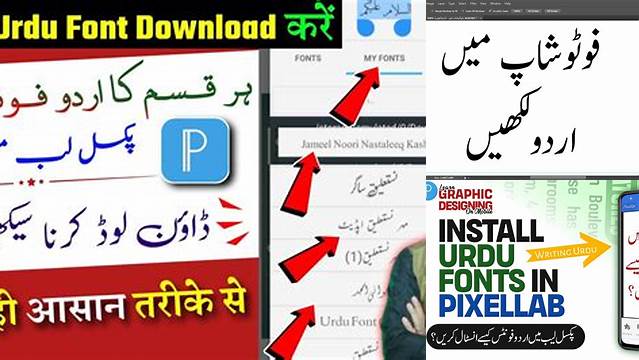
Install Urdu Fonts In Photoshop: A Simple Guide
Hey guys! Ever wanted to add a touch of Urdu calligraphy to your Photoshop masterpieces? It's easier than you think! This guide will walk you through how to install Urdu fonts in Adobe Photoshop step-by-step. We'll cover everything from finding the right fonts to troubleshooting common issues. So, let's dive in!
1. Understanding Urdu Font Compatibility with Photoshop
Before you jump right into installing fonts, it's crucial to understand how Urdu fonts work with Photoshop. Urdu, being a right-to-left script, requires fonts that are specifically designed to handle its complex character set and contextual ligatures. Not all fonts are created equal! Ensure the Urdu fonts you download support OpenType features, which enable proper rendering of the script in Photoshop. Using incompatible fonts can lead to display issues like broken characters or incorrect text direction. Also, confirm that your version of Photoshop supports Unicode, as this is essential for displaying Urdu characters correctly. Unicode support allows Photoshop to accurately interpret and display the wide range of characters present in the Urdu script. So, before you even start downloading, make sure you’re ticking all these boxes to avoid headaches later on. Think of it like preparing your canvas before painting – a little prep goes a long way!
2. Finding Reliable Sources for Urdu Fonts
Alright, so you know why compatibility matters. Now, where do you find these elusive Urdu fonts? The internet is a vast place, but not all font sources are trustworthy. Stick to reputable websites that offer high-quality fonts and are known for their reliability. Look for websites that provide previews of the fonts so you can see exactly what you're getting before you download. Free font websites can be tempting, but be cautious of potential malware or fonts that aren't properly licensed. Consider exploring websites dedicated to Urdu typography or design communities where designers often share their font creations. Some well-known platforms also offer a selection of Urdu fonts, both free and paid. Paid fonts often come with better support and a wider range of styles and weights. Always, always check the licensing terms of the font before using it in your projects, especially if you're planning to use it for commercial purposes. Nobody wants a copyright infringement notice!
7. Troubleshooting Font Display Issues in Photoshop
Okay, sometimes things don't go as planned, right? If you're seeing weird characters or your Urdu font isn't displaying correctly in Photoshop, don't panic! First, make sure you've selected the correct font in the Character panel. Double-check that the font supports OpenType features and that your Photoshop version supports Unicode. If you're still having problems, try adjusting the text direction to right-to-left in the Paragraph panel. Sometimes, Photoshop's text engine can be a bit finicky. If none of these steps work, try clearing Photoshop's font cache. To do this, close Photoshop, navigate to your user directory, and delete the "AdobeFnt[Photoshop version]Cache" file. Restart Photoshop, and it will rebuild the font cache. As a last resort, try reinstalling the font. Sometimes, the font file can become corrupted during download or installation. By following these troubleshooting steps, you should be able to resolve most font display issues in Photoshop.
8. Understanding OpenType Features for Urdu Fonts
OpenType features are your best friend when working with Urdu fonts in Photoshop. These features allow the font to display complex characters and ligatures correctly. Look for fonts that support features like contextual alternates, which automatically adjust the shape of characters based on their surrounding letters. This is crucial for Urdu, where characters often connect and change form depending on their position in a word. To access OpenType features in Photoshop, open the Character panel (Window > Character) and click on the panel menu (the three horizontal lines in the top right corner). Select "OpenType" from the menu, and you'll see a list of available features. Experiment with different features to see how they affect the appearance of your text. By understanding and utilizing OpenType features, you can ensure that your Urdu text looks beautiful and authentic in Photoshop.
9. Using the Paragraph Panel for Right-to-Left Text
Since Urdu is a right-to-left language, you'll need to adjust the text direction in Photoshop's Paragraph panel. To open the Paragraph panel, go to Window > Paragraph. In the panel, you'll see options for aligning text to the left, center, or right. You'll also see buttons for setting the text direction to left-to-right or right-to-left. Click the right-to-left button to ensure that your Urdu text flows correctly. You can also adjust other paragraph settings, such as indentation and spacing, to fine-tune the appearance of your text. The Paragraph panel is essential for working with right-to-left languages in Photoshop, so make sure you're familiar with its features.
10. Exploring Different Styles of Urdu Fonts
Just like any other language, Urdu fonts come in a variety of styles, from traditional calligraphy to modern designs. Experiment with different font styles to find the perfect one for your project. Naskh is a classic style that's often used for body text. Nastaliq is a more flowing and ornate style that's popular for headings and display text. There are also many contemporary Urdu font styles that blend traditional elements with modern design principles. Don't be afraid to try out different fonts and see what works best for your aesthetic. You can find a wide range of Urdu font styles on reputable font websites and design communities. With a little exploration, you're sure to discover some hidden gems.
11. Creating Calligraphic Effects with Urdu Fonts
Want to add some extra flair to your Urdu text? Try creating calligraphic effects in Photoshop. Start by selecting a font that has a calligraphic style, such as Nastaliq. Use the Type tool to create your text, and then experiment with different layer styles to add depth and dimension. Add a subtle drop shadow to make the text pop off the canvas. Use a gradient overlay to create a sense of movement. Experiment with different blending modes to achieve unique effects. You can also use Photoshop's brushes to add hand-drawn details to your text. With a little creativity, you can create stunning calligraphic effects that will make your Urdu text truly stand out.
12. Combining Urdu Fonts with Other Design Elements
Don't be afraid to combine Urdu fonts with other design elements in your projects. Use Urdu text as headings or subheadings to add a touch of elegance and sophistication. Incorporate Urdu calligraphy into your logos or branding materials. Use Urdu quotes or poems to add meaning and emotion to your designs. When combining Urdu fonts with other elements, pay attention to the overall composition and balance. Make sure the Urdu text complements the other elements and doesn't clash with them. Experiment with different color palettes and typography styles to create a cohesive and visually appealing design. The possibilities are endless!
13. Using Urdu Fonts for Logos and Branding
Urdu fonts can add a unique and culturally relevant touch to logos and branding materials. When designing a logo with Urdu text, choose a font that reflects the brand's personality and values. A traditional font like Naskh might be suitable for a company with a long history, while a modern font might be a better choice for a startup. Consider the overall aesthetic of the logo and how the Urdu text will interact with other design elements. Use color and typography to create a strong and memorable visual identity. A well-designed logo with Urdu text can help a brand stand out from the competition and connect with its target audience on a deeper level.
14. Designing Posters with Urdu Typography
Posters are a great way to showcase the beauty of Urdu typography. When designing a poster with Urdu text, start by choosing a font that's legible and visually appealing. Consider the overall message of the poster and how the Urdu text can help convey that message. Use a combination of large and small text to create visual interest. Experiment with different layouts and compositions. Don't be afraid to use bold colors and graphics to make your poster stand out. A well-designed poster with Urdu typography can be a powerful tool for communication and artistic expression.
15. Creating Social Media Graphics with Urdu Fonts
In today's digital world, social media graphics are essential for reaching a wide audience. Using Urdu fonts in your social media graphics can help you connect with Urdu-speaking communities and create content that resonates with them. When designing social media graphics with Urdu text, keep in mind the platform's size and resolution requirements. Use a font that's easy to read on small screens. Keep your text concise and to the point. Use visuals that complement the Urdu text and enhance the overall message. A well-designed social media graphic with Urdu fonts can help you increase engagement and reach a wider audience.
16. Adding Urdu Subtitles to Videos in Photoshop
While Photoshop isn't primarily a video editing software, you can use it to create static subtitle images for your videos. To add Urdu subtitles to videos, you'll first need to transcribe the audio into Urdu text. Then, create a new Photoshop document with the same dimensions as your video. Use the Type tool to add the Urdu text to the document. Choose a font that's easy to read and position the text at the bottom of the screen. Save the document as a PNG file with transparency. Import the PNG file into your video editing software and overlay it on top of your video. Adjust the timing and duration of the subtitle image to match the audio. With a little patience, you can add Urdu subtitles to your videos using Photoshop.
17. Translating English Text to Urdu for Photoshop Projects
If you're working on a Photoshop project that requires Urdu text, you might need to translate English text to Urdu. There are many online translation tools that can help you with this. However, keep in mind that machine translations are not always accurate, especially for complex or nuanced text. It's always a good idea to have a native Urdu speaker review the translation to ensure that it's accurate and idiomatic. Once you have the translated text, you can use it in your Photoshop project. Using accurate and well-translated Urdu text will help you connect with your target audience and create a more authentic and engaging experience.
18. Using Urdu Fonts in Print Design Projects
Urdu fonts can add a touch of elegance and sophistication to print design projects such as brochures, flyers, and posters. When using Urdu fonts in print, it's important to choose a font that's legible and prints well. Consider the paper stock and printing method when selecting a font. Use high-resolution images and graphics to ensure that your print design looks sharp and professional. Proofread your text carefully to catch any errors before sending it to the printer. A well-designed print project with Urdu fonts can be a powerful tool for communication and branding.
19. Creating Bilingual Designs with Urdu and English
Creating bilingual designs with Urdu and English can be a great way to reach a wider audience and cater to both Urdu-speaking and English-speaking communities. When creating a bilingual design, it's important to balance the Urdu and English text in a visually appealing way. Use different font styles or sizes to distinguish between the two languages. Consider the overall layout and composition of the design. Make sure the Urdu and English text complement each other and don't clash. A well-designed bilingual project can be a powerful tool for communication and cross-cultural understanding.
20. Common Mistakes to Avoid When Using Urdu Fonts
Even experienced designers can make mistakes when working with Urdu fonts. One common mistake is using fonts that are not compatible with Photoshop or that don't support OpenType features. This can lead to display issues like broken characters or incorrect text direction. Another mistake is using fonts that are too small or too ornate to be legible. Always choose fonts that are easy to read, especially for body text. It's also important to proofread your text carefully to catch any errors. By avoiding these common mistakes, you can ensure that your Urdu text looks beautiful and professional in your Photoshop projects.
21. Exploring Urdu Calligraphy Styles
Delving into the world of Urdu calligraphy styles opens up a realm of artistic possibilities. From the elegant curves of Nastaliq to the structured forms of Kufic, each style carries its unique charm and historical significance. Understanding these styles will not only enhance your appreciation for Urdu typography but also inspire your own creative endeavors in Photoshop. Experiment with different calligraphy styles to find the perfect match for your design aesthetic and the message you wish to convey. You might even consider blending elements from different styles to create a personalized calligraphic expression.
22. Best Practices for Urdu Typography in Digital Design
When it comes to Urdu typography in digital design, following certain best practices can make a significant difference in the visual appeal and readability of your work. Pay close attention to kerning and tracking to ensure optimal spacing between characters. Use a consistent baseline for your text to maintain a sense of order and harmony. Choose a font size that is appropriate for the viewing medium and the amount of text you're working with. And always, always proofread your work before finalizing it to catch any typos or grammatical errors.
23. Mastering Urdu Ligatures in Photoshop
Ligatures, the merging of two or more letters into a single glyph, are an essential component of Urdu typography. Mastering the use of ligatures in Photoshop will elevate your designs to a new level of sophistication and authenticity. Experiment with different OpenType features to explore the various ligature options available in your chosen font. Use ligatures judiciously to enhance readability and create a more visually appealing flow of text. And don't be afraid to create your own custom ligatures to add a unique touch to your designs.
24. Using Glyphs Panel for Special Urdu Characters
The Glyphs panel in Photoshop is your secret weapon for accessing special Urdu characters that may not be readily available on your keyboard. This panel allows you to browse through all the characters included in a font, including alternate glyphs and ligatures. Use the Glyphs panel to insert special characters into your text with ease. You can also use it to create custom ligatures by combining different glyphs together. Mastering the Glyphs panel will give you complete control over your Urdu typography in Photoshop.
25. Right-to-Left Text Formatting Tips
Working with right-to-left text can be tricky if you're not used to it. But with a few simple tips and tricks, you can master the art of formatting Urdu text in Photoshop. Start by setting the text direction to right-to-left in the Paragraph panel. Use the correct alignment options to ensure that your text flows properly. Pay attention to the order of punctuation marks and symbols. And always double-check your work to make sure that everything is aligned correctly. With a little practice, you'll be formatting Urdu text like a pro in no time.
26. Optimizing Urdu Text for Readability
Readability is paramount when it comes to Urdu typography. If your text is not easy to read, your message will get lost. To optimize Urdu text for readability, choose a font that is clear and legible. Use a sufficient font size and line height. Avoid using too many decorative fonts or complex ligatures. And always pay attention to contrast between the text and the background. By following these simple guidelines, you can ensure that your Urdu text is easy to read and understand.
27. Advanced Text Effects for Urdu Typography
Once you've mastered the basics of Urdu typography, you can start experimenting with advanced text effects to add some visual flair to your designs. Use layer styles to create shadows, highlights, and bevels. Apply filters to distort or stylize your text. Use masks to blend your text with other design elements. And don't be afraid to get creative and experiment with different techniques. With a little imagination, you can create stunning text effects that will make your Urdu typography stand out from the crowd.
28. Resources for Learning Urdu Typography
If you're serious about mastering Urdu typography, there are plenty of resources available to help you on your journey. Online tutorials, workshops, and courses can provide you with in-depth knowledge and practical skills. Books on typography and design can offer valuable insights and inspiration. And design communities and forums can connect you with other designers and typographers who share your passion for Urdu typography. By taking advantage of these resources, you can accelerate your learning and become a true expert in Urdu typography.
29. The Future of Urdu Fonts in Digital Design
The future of Urdu fonts in digital design is bright. As technology continues to evolve, new and innovative font technologies are emerging that will make it easier than ever to create stunning Urdu typography. Variable fonts, for example, allow designers to adjust various parameters of a font, such as weight and width, to create custom variations. Artificial intelligence is also playing a role, with AI-powered tools that can automatically generate Urdu fonts based on specific design criteria. As these technologies continue to develop, the possibilities for Urdu typography in digital design will be endless.
30. Inspiring Examples of Urdu Typography in Modern Design
Looking for inspiration for your next Urdu typography project? There are countless examples of stunning Urdu typography in modern design to draw from. From posters and packaging to websites and social media graphics, designers around the world are using Urdu fonts in creative and innovative ways. Browse through design blogs, magazines, and online portfolios to discover inspiring examples of Urdu typography in action. And don't be afraid to adapt and reinterpret these ideas to create your own unique and original designs. Let these examples serve as a source of inspiration and motivation as you embark on your own Urdu typography journey.